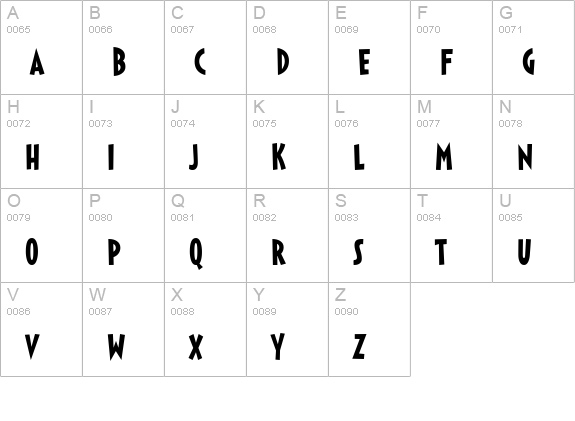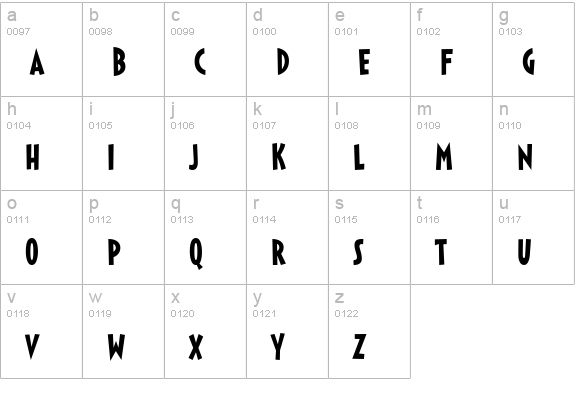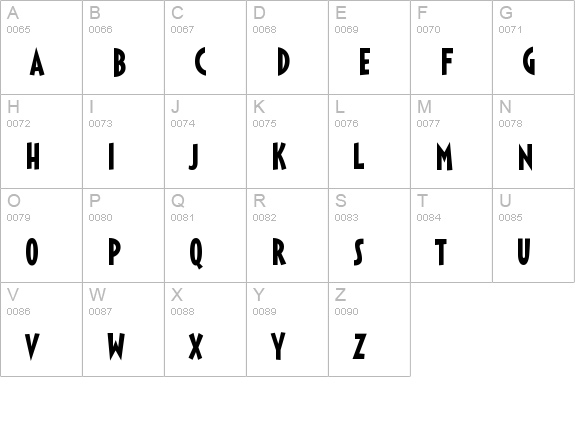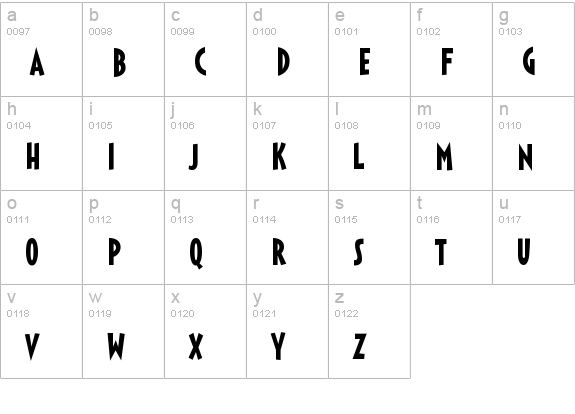
Sticky Moula BTN Font Details
Sticky Moula BTN is a versatile and modern font that exudes a unique blend of elegance and playfulness. With its quirky yet sophisticated design, this font is perfect for a wide range of creative projects, from branding to invitations to social media graphics. What sets Sticky Moula BTN apart is its distinct sticky note-inspired appearance, giving your text a fresh and eye-catching look. The slightly irregular shapes of the letters add a handcrafted touch, making your designs stand out from the crowd. The best part? Sticky Moula BTN is available for free download at FontsMarket.com. So go ahead and add a touch of whimsy to your projects with this charming and versatile font.